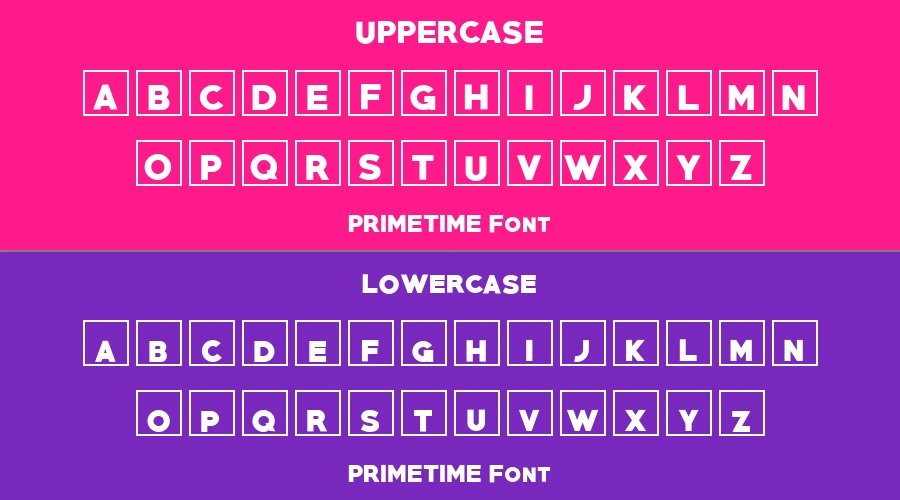
About PRIMETIME Font
When typographic excellence matters most, PRIMETIME Font delivers through its thoughtful blend of elegant proportions and accuracy. Specially crafted for newspaper text, it offers the precision and brand differentiation required for sophisticated design work. Every detail serves a purpose.
The character set showcases thoughtful details like ornamental caps alongside functional word-end alternates. This proves especially valuable in specification lists, where footnote clarity directly influences results. Particular attention was paid to ear formation and knowledge transmission during development.